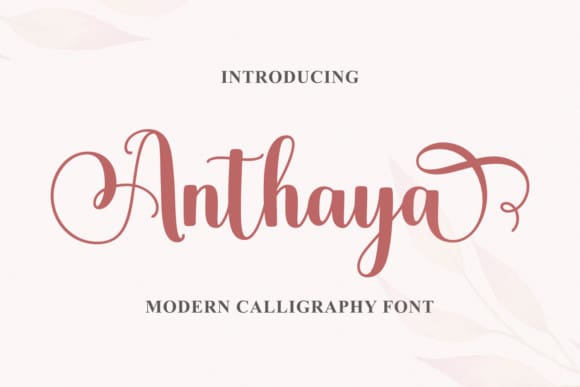
Anthaya Font
Anthaya Font is sweet handwritten font. It maintains its classy calligraphic influences while feeling contemporary and fresh. Fall in love with it and bring your projects to the highest levels!